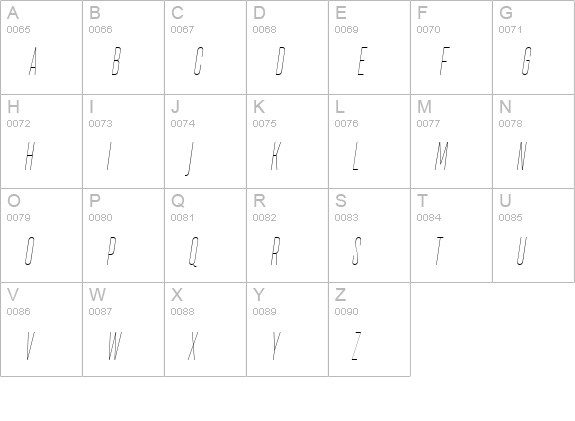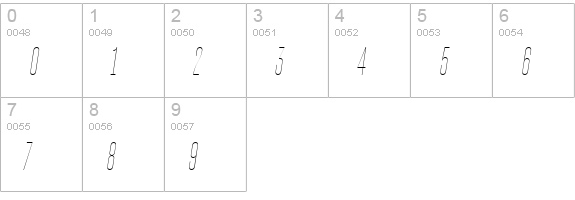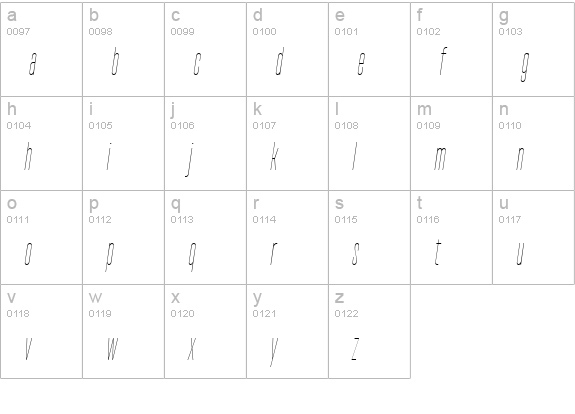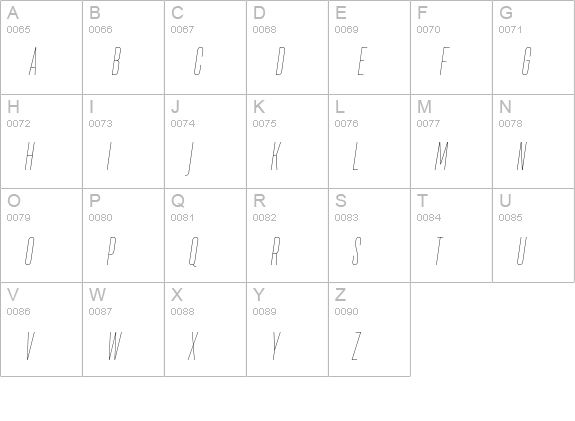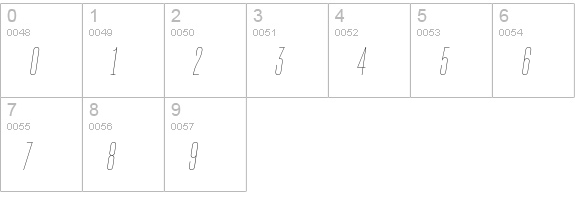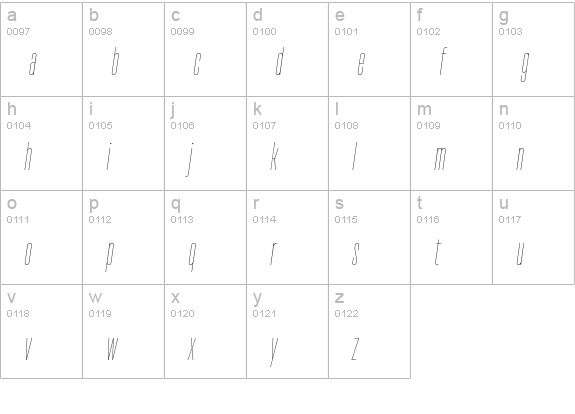
TT Bluescreens Thin Italic Font Details
TT Bluescreens Thin Italic is a delicate, low-contrast, italic variant in the TT typeface family \xE2\x80\x94 well suited to fashion editorial, minimal branding, and high-contrast display.
TT Bluescreens Thin Italic font is a sleek and modern typeface designed for digital displays and screens. Its thin and italicized design gives a contemporary and sophisticated look to any project. This font is perfect for adding a touch of elegance and style to your designs. What makes TT Bluescreens Thin Italic font even better is that it is available for free download at FontsMarket.com. You can easily access this font and use it in your personal or commercial projects without any cost. Don't miss out on the opportunity to enhance your designs with this beautiful and versatile typeface. Download TT Bluescreens Thin Italic font today and elevate your typography game.